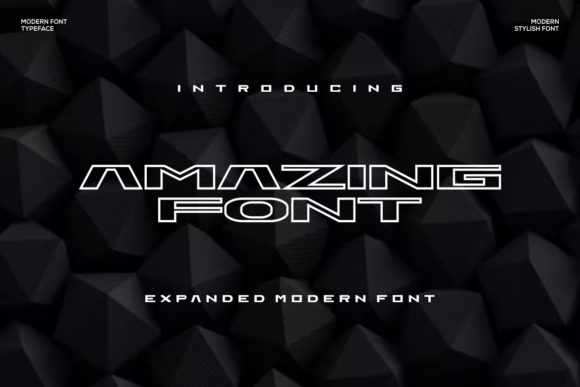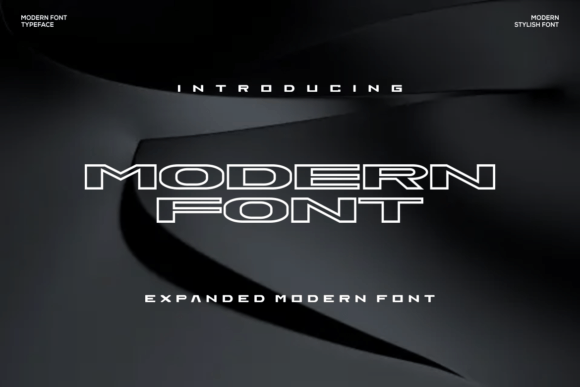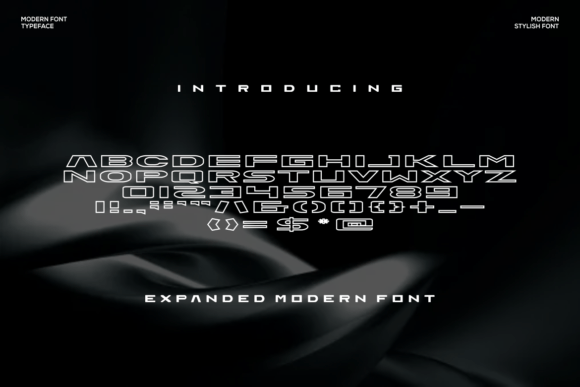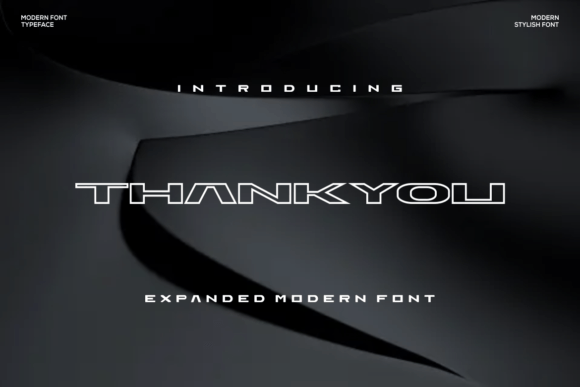
Introducing Cinkur Font: The Modern Display Font for Bold Designs
In the world of design, fonts play a crucial role in conveying messages, expressing creativity, and building brand identities. For designers and crafters, finding the perfect font can be a daunting task, especially when it comes to creating bold and authentic designs. That’s where Cinkur Font comes in – a modern display font that’s perfect for a variety of design projects.
What is Cinkur Font?
Cinkur Font is a bold and authentic display font designed to make a statement. Its unique and modern style makes it perfect for any branding project, including logos, t-shirt printing, creative products, and more. With its clean lines, elegant curves, and distinctive features, Cinkur Font is sure to grab attention and leave a lasting impression.
Key Features of Cinkur Font
- Bold and Authentic: Cinkur Font is designed to be bold and authentic, making it perfect for designs that require a strong and confident look.
- Modern Style: With its clean lines and elegant curves, Cinkur Font has a modern style that’s perfect for contemporary designs.
- Versatile: Cinkur Font is versatile and can be used in a variety of contexts, including logos, t-shirt printing, creative products, and more.
- Easily Readable: Despite its bold style, Cinkur Font is easily readable, making it perfect for designs that require a clear and concise message.
Use Cases for Cinkur Font
Cinkur Font is perfect for a variety of design projects, including:
- Logo Design: Cinkur Font is perfect for creating bold and memorable logos that make a statement.
- T-Shirt Printing: With its bold style, Cinkur Font is perfect for t-shirt printing, making it a great choice for designers who want to create eye-catching designs.
- Creative Products: Cinkur Font can be used to create a variety of creative products, such as posters, flyers, brochures, and more.
- Branding Projects: Cinkur Font is perfect for branding projects that require a bold and authentic look, such as business cards, letterheads, and more.
Why Choose Cinkur Font?
There are many reasons why designers and crafters should choose Cinkur Font for their design projects. Here are a few:
- Unique Style: Cinkur Font has a unique style that’s sure to grab attention and leave a lasting impression.
- High-Quality Design: Cinkur Font is designed with high-quality and precision, ensuring that it looks great in any context.
- Easily Customizable: Cinkur Font is easily customizable, making it perfect for designers who want to experiment with different styles and effects.
| Author | agusbolang1616 |
In conclusion, Cinkur Font is a modern display font that’s perfect for designers and crafters who want to create bold and authentic designs. With its unique style, high-quality design, and versatility, Cinkur Font is sure to become a go-to font for a variety of design projects. Whether you’re creating logos, t-shirt printing designs, or creative products, Cinkur Font is the perfect choice.